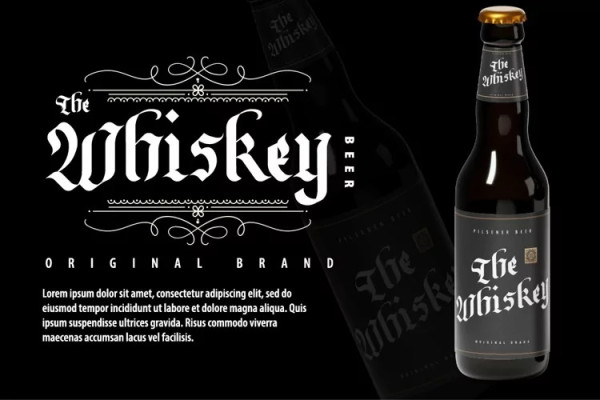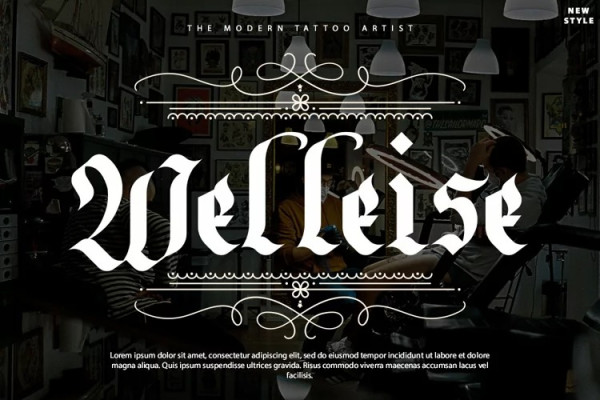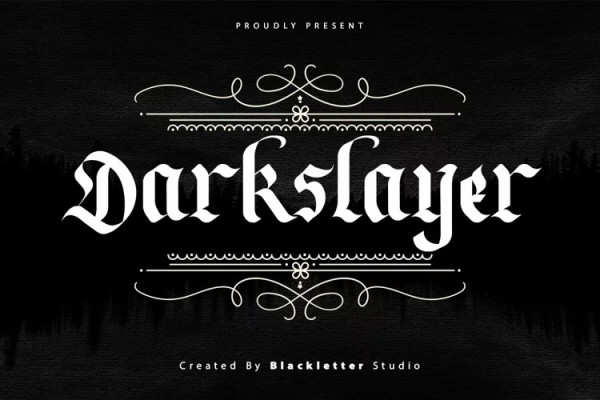
Dark Slayer Font
Dark Slayer Font is a unique blackletter font. Get inspired by it’s classic feel and use it to create outstanding designs! Suitable for any design needs : logo, branding, modern advertising design, logos, poster quote, book / cover Title, editorial design, website / blog, card, t-shirts,…